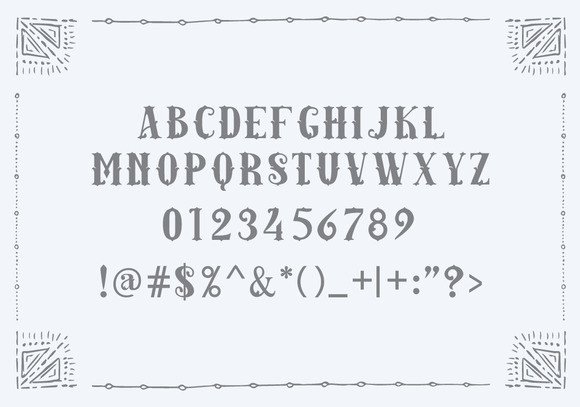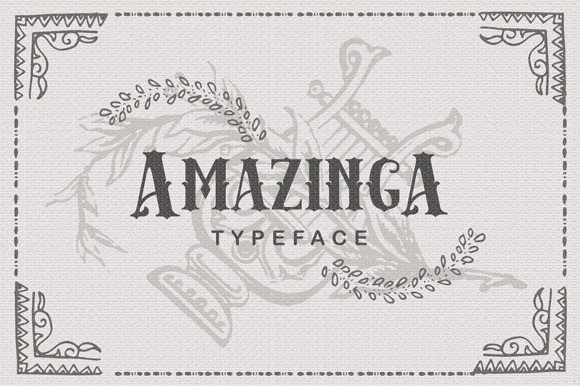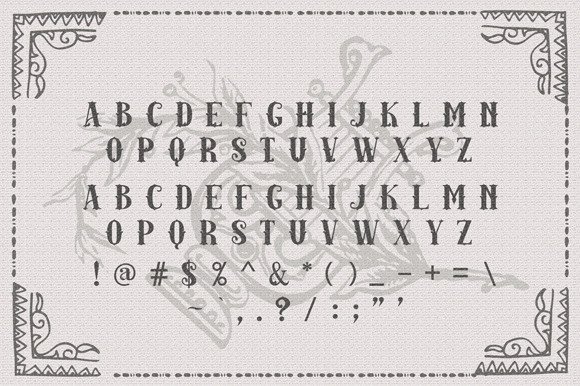
The Amazinga Font: A Victorian-Inspired Beauty for Your Creative Projects
I’ll never forget the time I was working on a wedding invitation design project, and my client asked me to create a custom font that exuded elegance and sophistication. I spent hours scouring the internet for the perfect font, but nothing seemed quite right. That’s when I stumbled upon the Amazinga font, and it instantly became my go-to choice. In this article, I’ll share my experience with this beautiful display serif font and provide a comprehensive guide on how to use it in various design platforms.
An Honest Review of Amazinga Font
What I Love About Amazinga Font
- ✨ Unique Victorian Style: Amazinga font boasts a distinctive Victorian style that’s perfect for creating eye-catching designs.
- ✅ Thick and Smooth Letters: The font’s thick and smooth letters make it highly readable, even at smaller sizes.
- ✅ Modern Feel: Despite its Victorian inspiration, Amazinga font has a surprisingly modern feel that works well for a wide range of projects.
- ✅ Versatile: This font is perfect for various design projects, including posters, t-shirts, letterheads, logos, labels, wedding invitations, cards, and more.
While Amazinga font is an excellent choice for many design projects, there are a few minor quirks to be aware of:
- ⚠️ Limited Use in Body Text: Due to its display serif nature, Amazinga font may not be the best choice for body text, especially in larger blocks of text.
- 🤔 Some Letters May Appear Similar: A few letters, such as “I” and “l”, may appear similar, which can cause confusion in certain designs.
The Backstory of Amazinga Font
According to the font’s designer, Amazinga font was inspired by the ornate, elegant typography of the Victorian era. The designer wanted to create a font that captured the essence of this era while still feeling modern and fresh. After months of research and design work, Amazinga font was born.
Q: What type of projects is Amazinga font best suited for?
A: Amazinga font is perfect for display projects, such as posters, t-shirts, letterheads, logos, labels, wedding invitations, cards, and more.
Q: Can I use Amazinga font for body text?
A: While Amazinga font is highly readable, it’s not recommended for large blocks of body text due to its display serif nature.
Q: Is Amazinga font suitable for digital use?
A: Yes, Amazinga font is optimized for digital use and can be used for various digital projects, such as social media graphics, website headers, and more.